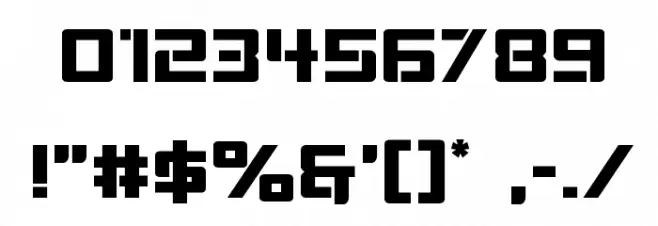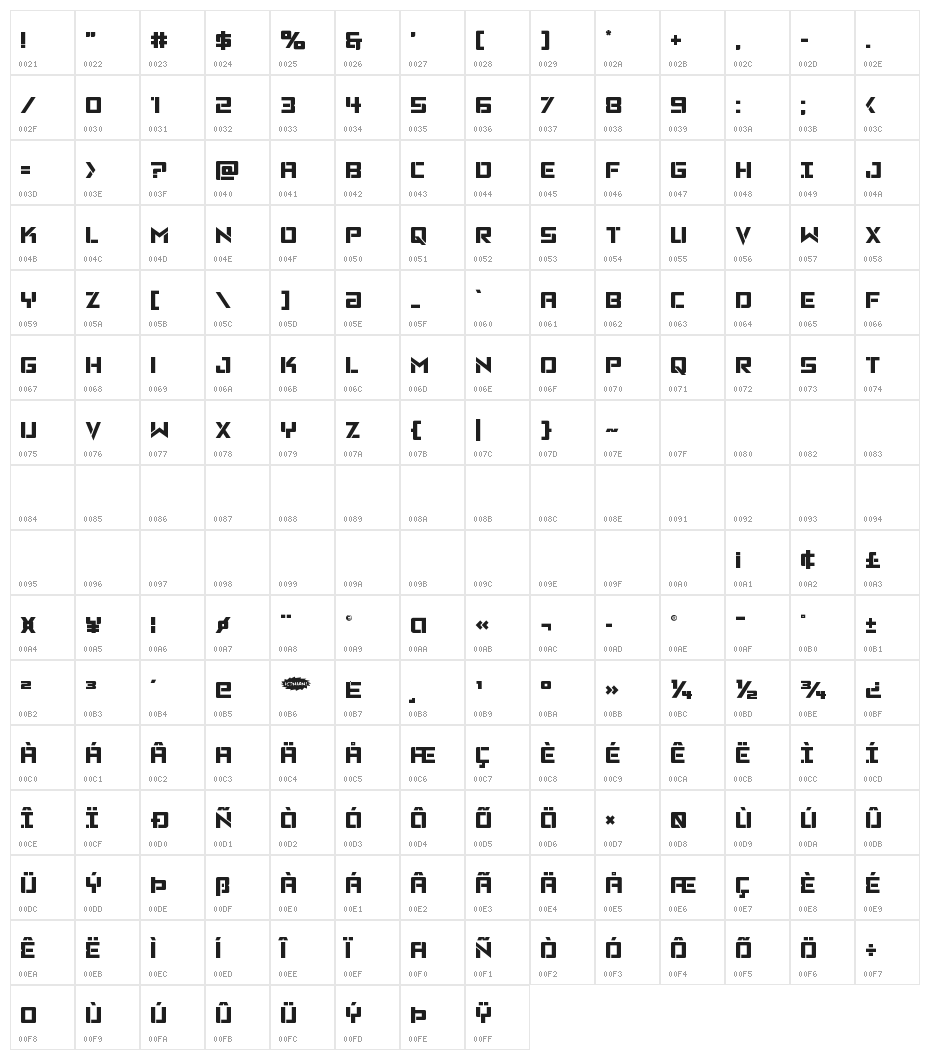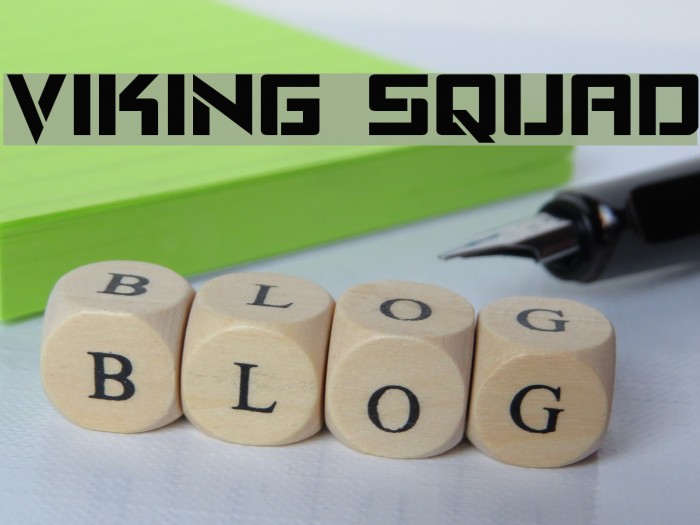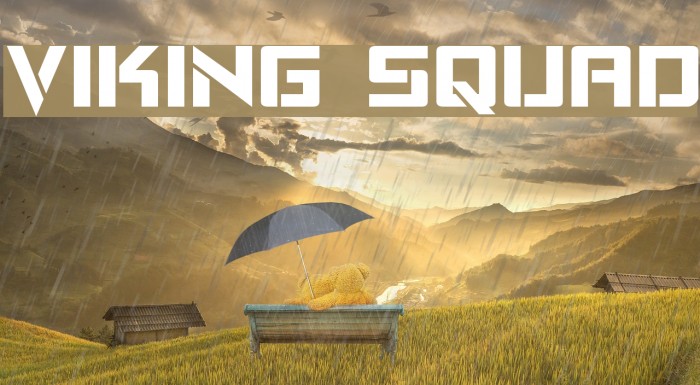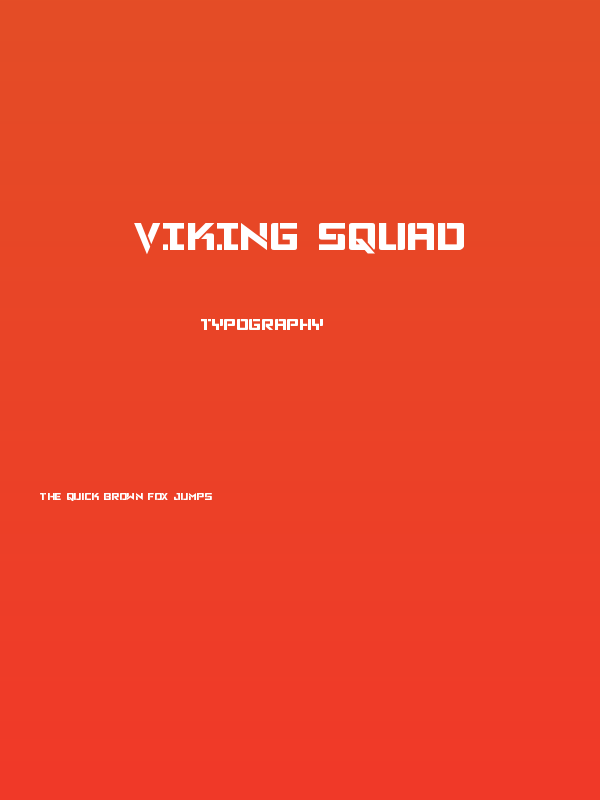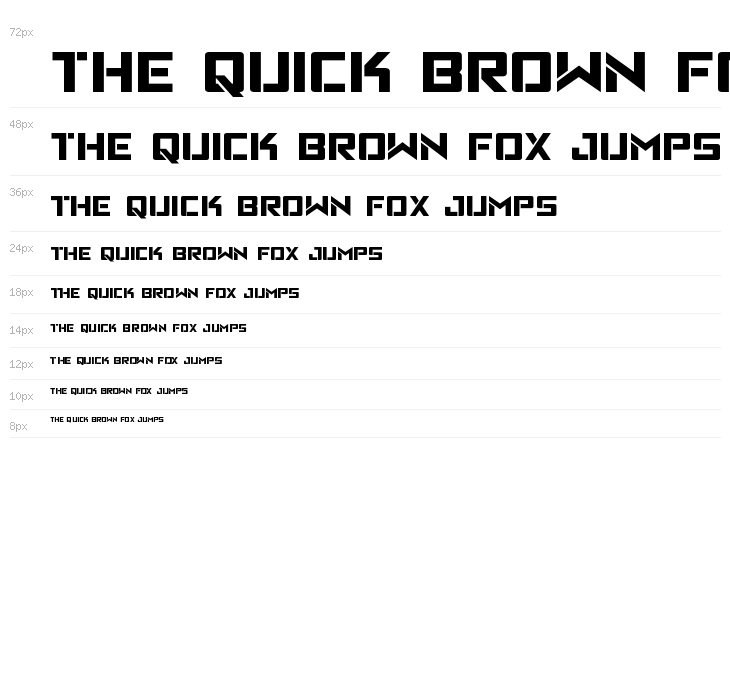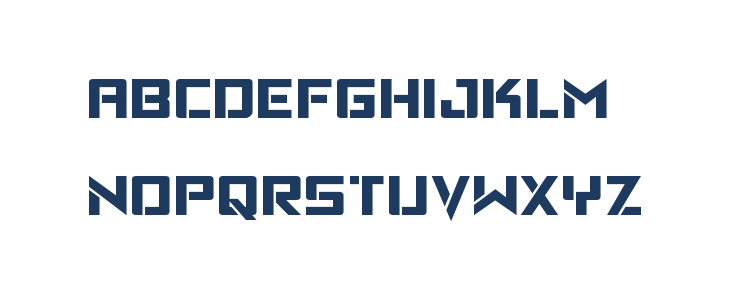
Viking Squad Font
Viking Squad Description
This font features a bold, geometric design with sharp angles and a futuristic aesthetic. The characters are blocky and solid, creating a strong visual impact. The uppercase letters are particularly striking, with unique cuts and angles that give them a dynamic appearance. The numerals and special characters maintain this bold style, ensuring consistency across all glyphs. The overall look is modern and assertive, making it suitable for projects that require a strong, impactful typeface.
| Proposed Projects | Ideal for video game titles, sci-fi themed posters, branding for tech companies, and any project needing a strong, modern typeface. |